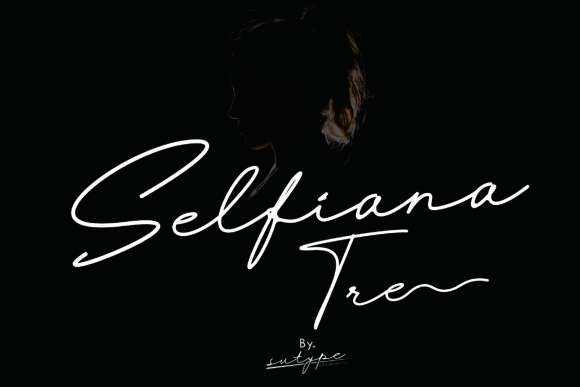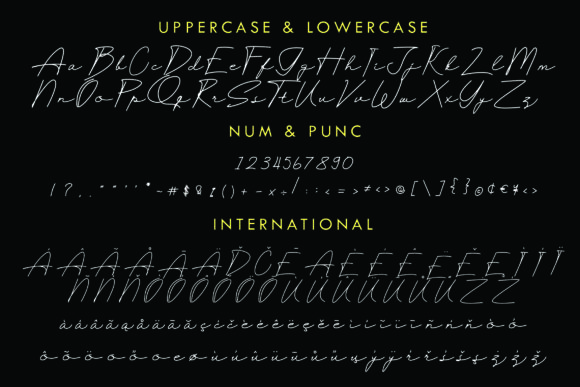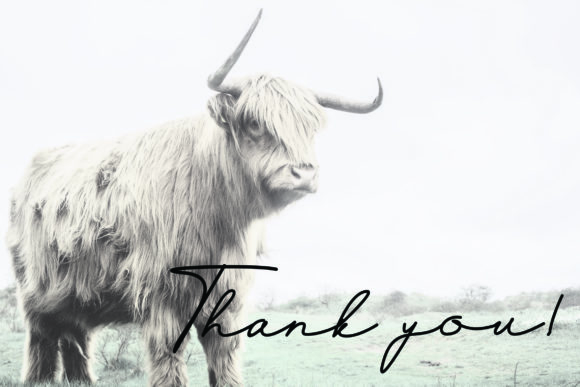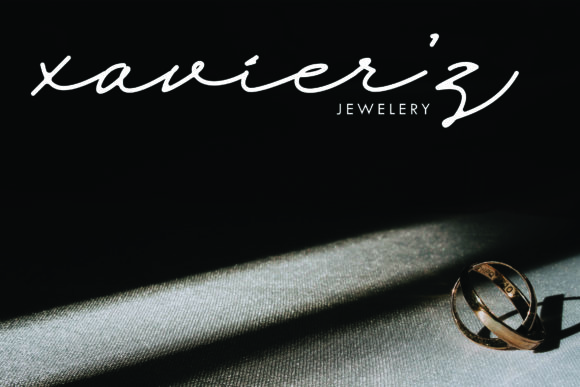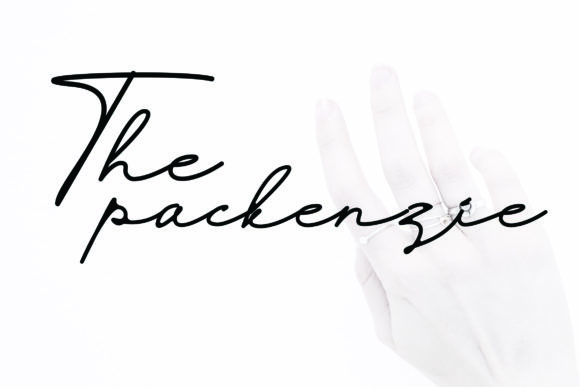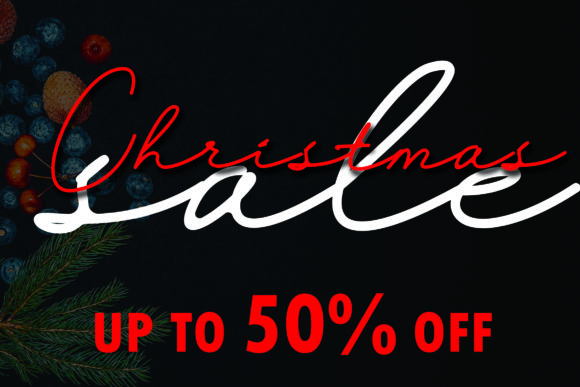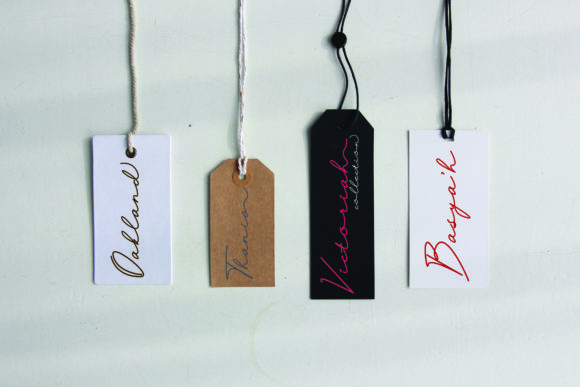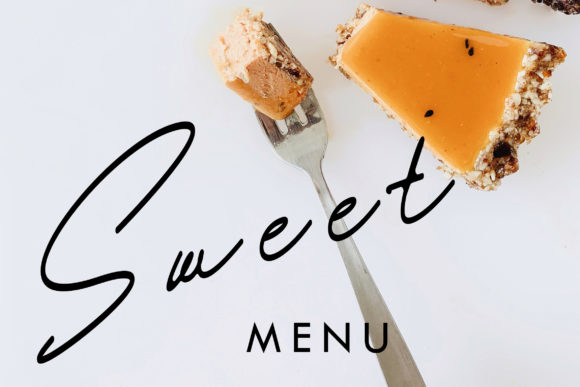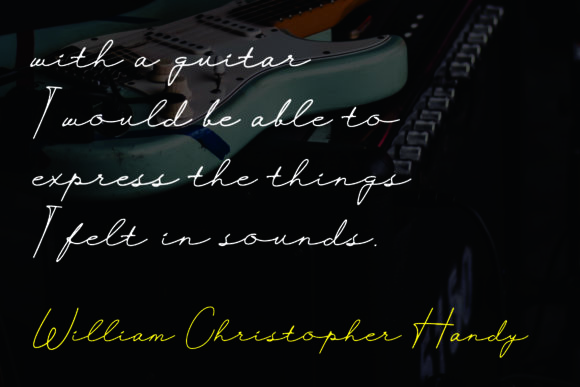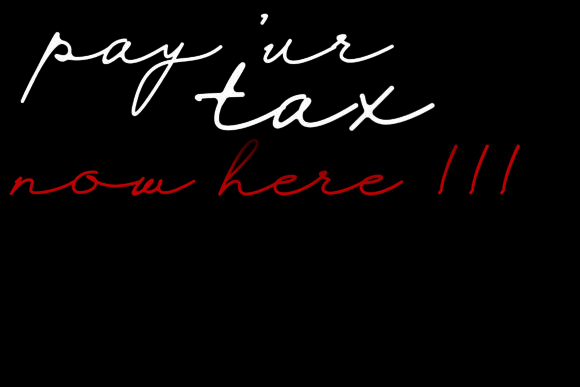
HomeScript FontsSelfiana Tre Font Script Fonts Selfiana Tre Font FacebookXPinterestWhatsApp Selfiana Tre Font Poster 2 Selfiana Tre Font Poster 3 Selfiana Tre Font Poster 4 Selfiana Tre Font Poster 5 Selfiana Tre Font Poster 6 Selfiana Tre Font Poster 7 Selfiana Tre Font Poster 8 Selfiana Tre Font Poster 9 Selfiana Tre Font Poster 10 Selfiana Tre Font Poster 11 About Selfiana Tre Font Selfiana Tre is a fresh and modern script that will add a unique look to any design idea! DOWNLOAD ON CREATIVE FABRICAThis font is sold and delivered by Creative Fabrica. Font Canyon may earn a commission if you buy through this link. People also explored Artis Font HMS Gilbert Family Caverson Font Barge Bushel and a Peck Font Otomarcus Font Shalby Font Doctor”s Scrawl Happy Darling Font 331 0 TagsSelfiana Tre Font Previous articleBrosley FontNext articleGloriousity Font LEAVE A REPLY Cancel reply Comment: Please enter your comment! Name:* Please enter your name here Email:* You have entered an incorrect email address! Please enter your email address here Website: Save my name, email, and website in this browser for the next time I comment. Personal Use Free Ryujin Attack Personal Use Free Read more about this font Peristiwa Font Personal Use Free Read more about this font Axaxax Bold Personal Use Free Read more about this font Happy Garden Personal Use Free Read more about this font BLOG Elegant Wedding Invitation Fonts – Handwritten & Script Fonts Elegant Wedding Invitation Fonts Your wedding day is one of the most important moments of your life, and every detail matters—including your invitation design. Our... Using Fonts in Digital Marketing: Tips to Strengthen Your Brand Identity Exploring Font Trends Free vs Paid Fonts: Why Investing in Premium Fonts Is Worth It